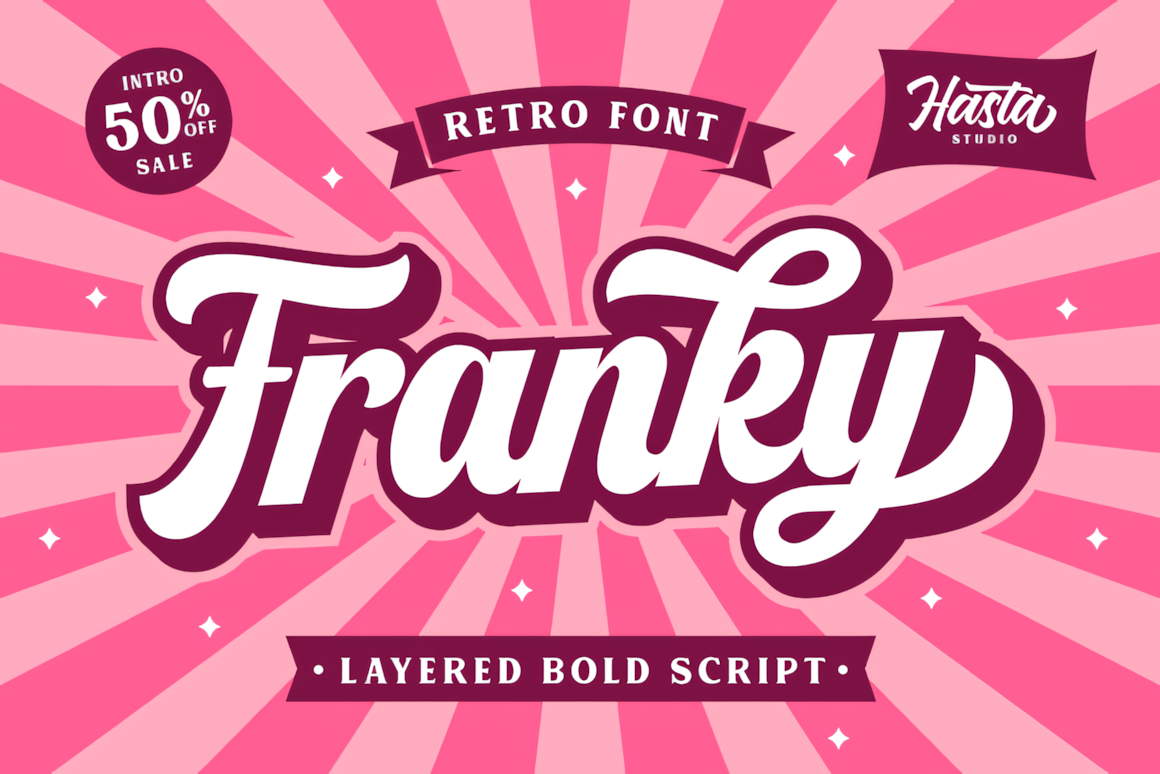
Franky – A distinctive and vintage large script font. It was created with a timeless look that will help you standout. Include uppercase and lowercase, a stylized sets, alternative languages and more to blend and match your style.
It’s specifically designed for the purpose of branding food and drinks as well as packaging typography (e.g. snack honey, breakfast meals bread, milk, and cake). It’s also ideal for posters business cards, headlines menus for restaurants and many more.
Franky Retro Script Font